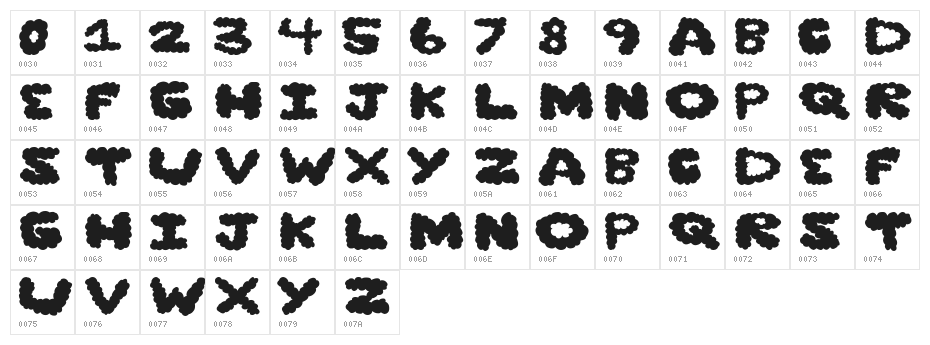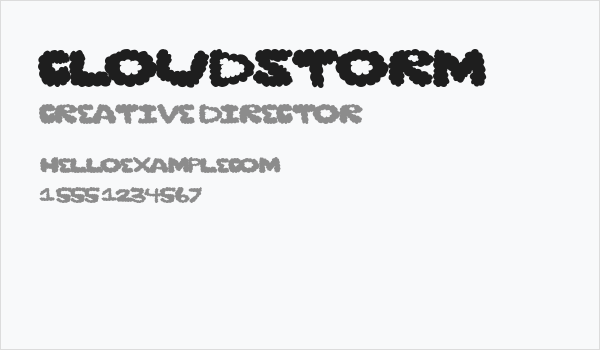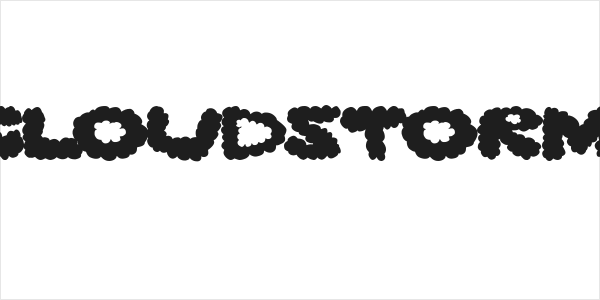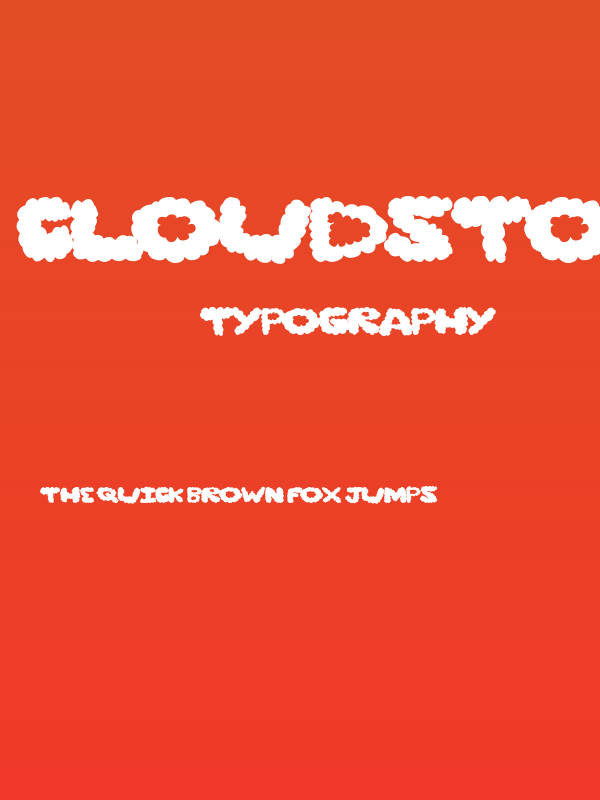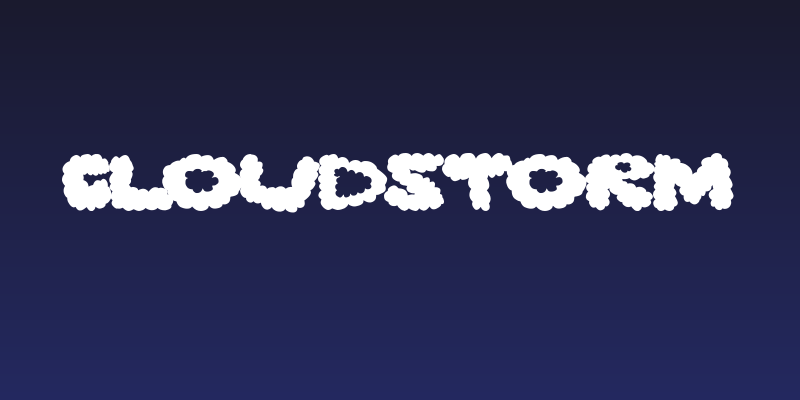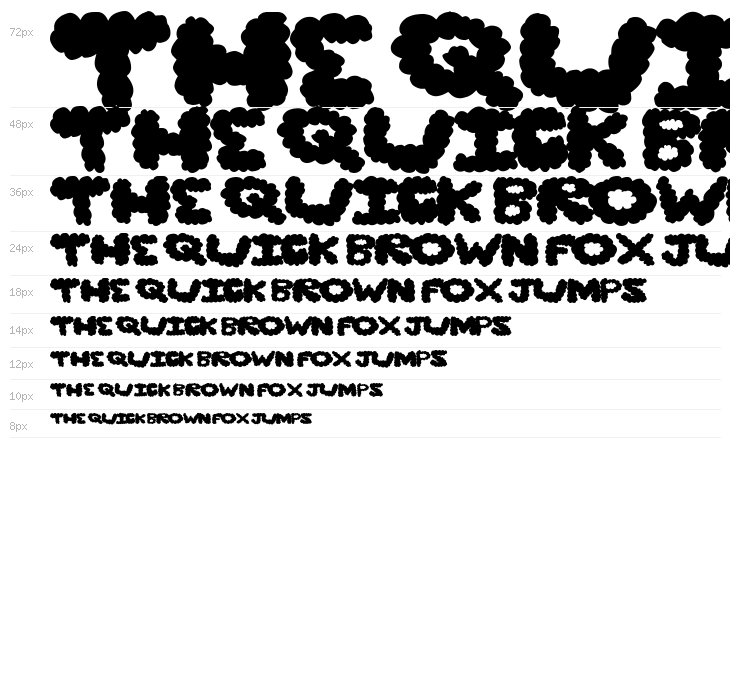
cloudstorm Font
cloudstorm Description
This playful and bold font features a unique cloud-like texture, giving each character a fluffy and whimsical appearance. The letters are rounded and filled with a dense pattern that resembles clusters of clouds, creating a sense of movement and lightness. Despite its decorative nature, the font maintains legibility with clear distinctions between each character. The numbers and special characters follow the same design, ensuring consistency throughout. This font is perfect for projects that require a fun and eye-catching style.
Proposed ProjectsIdeal for children's book covers, playful branding, party invitations, and any project that seeks a lighthearted and fun aesthetic.